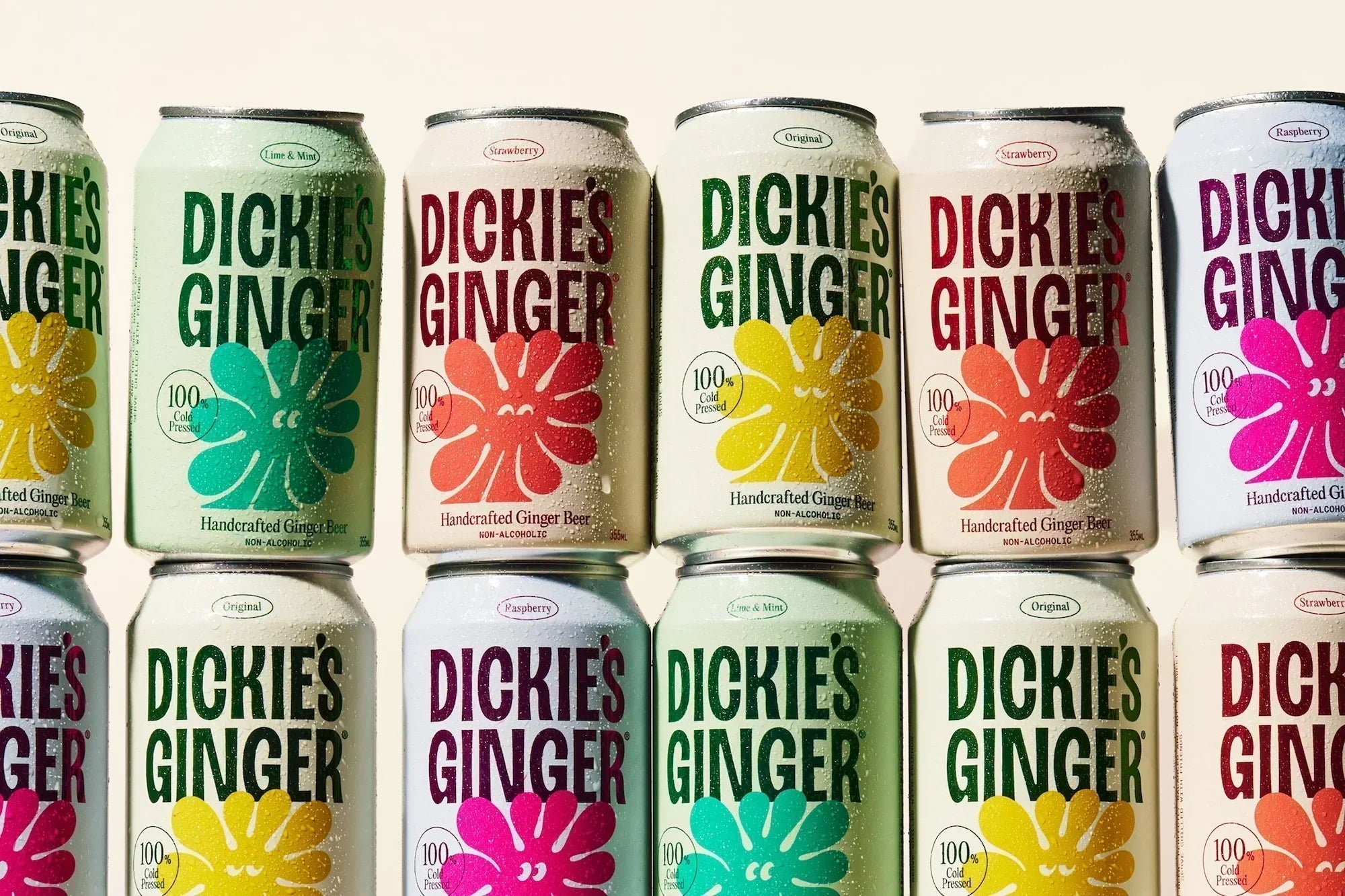
Dickie's Ginger
Pendo rebrands Dickie’s Ginger for a new generation of drinkers.
The cold-pressed, non-alcoholic ginger beer is made in Vancouver with fresh-juiced ginger and real fruit, and has built a loyal local following while sitting in a category that takes itself far too seriously. For the rebrand that would change that, Dickie’s turned to Pendo, a Vancouver brand and creative agency. “Ginger beers lean into an old-time aesthetic, harkening to some bygone era of authenticity and nostalgia,” Owner Stephen Tufts explains of the romance of provenance and nature that Dickie's wanted none of.
“Focusing purely on deliciousness, our quality of craft, pursuing joyful consumption versus functional qualities, represents something of a radical act in our modern relationship to our food,” he continues. Pendo translated that conviction through the worlds Dickie’s already moves in – the local brewery scene, cocktail culture and a counter-culture crowd – positioning it as the drink of a new generation that cares about what it consumes but feels no need to romanticise it. “We were inspired by music festival branding, rave flyers and punk show posters,” reveals Peter Ladd, Creative Director & Co-Founder at Pendo. “This is where Dickie’s was showing up and we wanted to continue that.”
Pendo’s answer began with the star of the show: ginger. The agency was drawn to how irregular it is – every root knobbly and a little weird, no two pieces alike – and surprised that competitors weren’t doing anything with it. So they bought a lot of ginger, sliced it in half to capture the shapes, traced them and refined from there. What turned those shapes into a character was the eyes. “It wasn’t until we added eyes and gave it a personality that it really clicked,” Ladd tells us. The abstracted root became Dickie, a character with enough life to spin off a family of relations across the range.
Keeping that character from tipping into kids’ territory fell partly to the wordmark, a fully custom piece developed with typographer Nathan Metzler. It had to be bold enough to stand out on a shelf and condensed enough to fit on a narrow can, with the round, odd shapes of ginger worked into the letterforms but stopped short of caricature, down to the drop-shaped apostrophe in DICKIE’S. “We didn’t want this to come off too playful or like a sugary drink for kids,” Ladd explains, “so the restraint needed to balance out between the two” – the type pulling against the illustration. Around it sit two Pangram typefaces: Editorial New, saved for headlines and marketing, and the utilitarian Montreal Mono for descriptive detail, both set against the rounded ginger forms to capture the raw, DIY tone the brand was after.
That instinct to pull back runs through the art direction, where the brief was to look unforced. Every touchpoint – setup, lighting, textures, product and ingredient shots – was directed to feel imperfect. “When it felt too curated or perfect, we scrapped it,” Ladd details; the studio even kept a board of the big brands on view as a reminder to do the opposite. The same thinking redirected the photography, with tabletop ingredient shots tried and dropped because, as Ladd puts it, they “began feeling like other product brands.” In their place came close-cropped, low-fi images of raw ginger under hard light, sitting almost like a backdrop so the character and content stayed in front. Raw against polished was the real balancing act – the brand still had to feel like something you would want in your fridge year-round – and Pendo leaned on showing the back of house, the brewery and the filling line, to keep it feeling, in Ladd’s words, like “a product made locally by the same people you hang out with.”
Across the four varietals, colour is the differentiator. Pendo tuned each one to its flavour but kept the palette deliberately grown-up – “a more adult/health conscious vibe,” in Ladd’s description, “not going too bright” – so the cans never look like sugary pop. The ginger illustration stays constant on every can, with only the eyes shifting from one to the next to give each its own attitude.
The response has surprised even Tufts, who has spent decades in underground music scenes and had let the brand’s own imagery grow stale. “It’s been universal praise, which really never happens,” he adds, noting that even the austere cocktail bars he was unsure about have come around. For him, it lands on a wider shift he is happy to ride: “We’re moving pretty quickly away from minimalism and greige.”